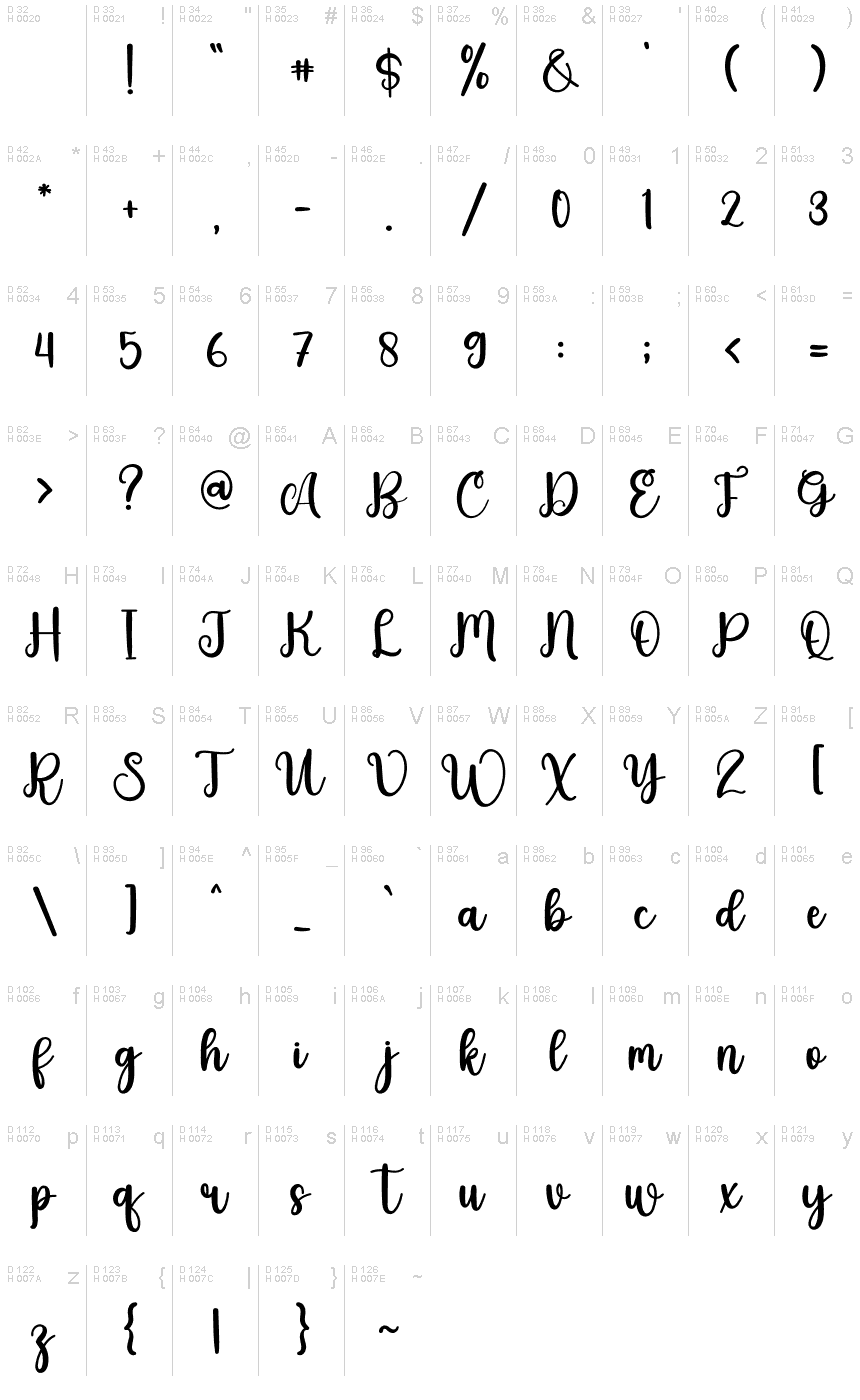
Behinds
Behinds is a stunning calligraphy font designed by Inermedia Studio. Perfect for adding an elegant touch to your wedding invitations, logos, and other creative projects. Let Behinds bring beauty and elegance to your work.